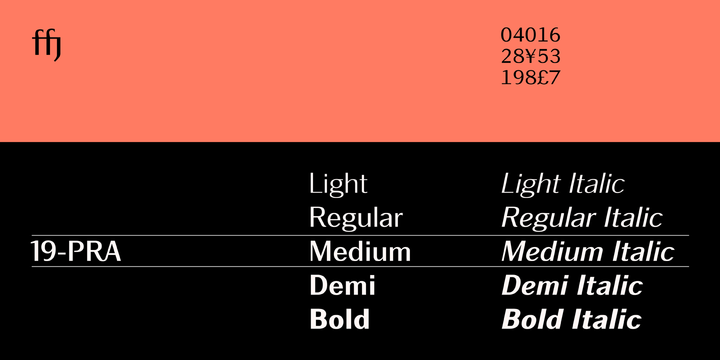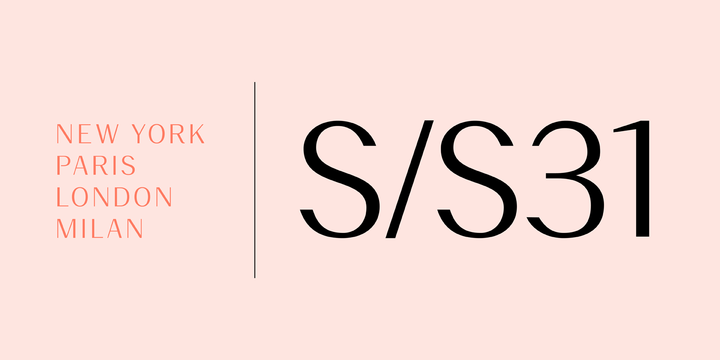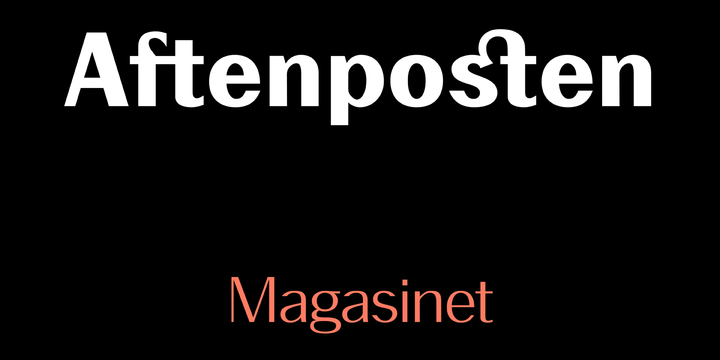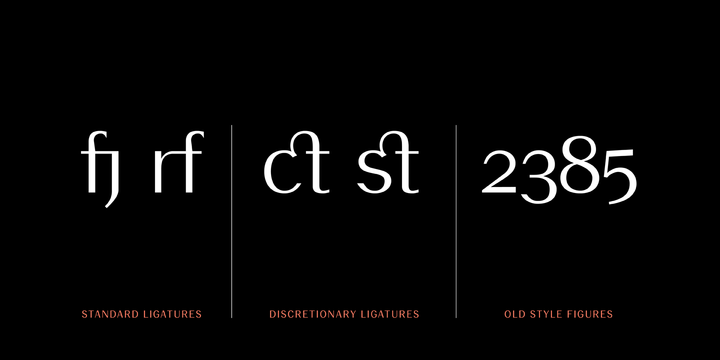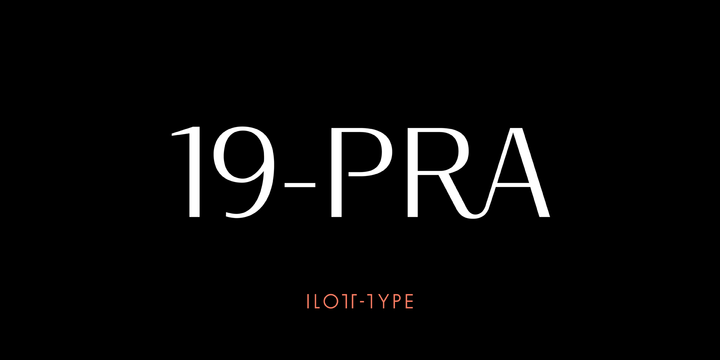
19-PRA Font Family
Inspired by the elegance of Herman Zapf’s designs crossed with the readability of early 20th century Gothic fonts by Morris Fuller Benton, 19-PRA is a sans-serif with a visible stroke contrast and a humanist tone of voice.